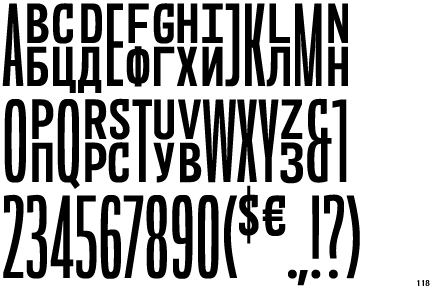
Balkan Sans
A typeface designed to demystify the differences between the Latin and Cyrillic alphabets.
Designers: Nikola Djurek and Marija Juza
Year: 2011
Publisher: Typonine
Among the winners of the 2012 Type Directors Club Type Design Competition.
Among the typefaces chosen in the review Our Favorite Typefaces of 2012 by the on-line journal Typographica.
No lower-case characters.